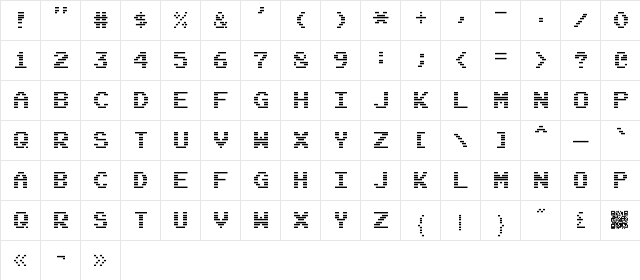
Highscore Hero Regular Font Preview
Highscore Hero Regular
Highscore Hero Regular Font Details
Design Context for Highscore Hero Typeface
Highscore Hero takes a measured approach to typography — its balanced proportions and neutral character make it a reliable workhorse for both digital and print work.